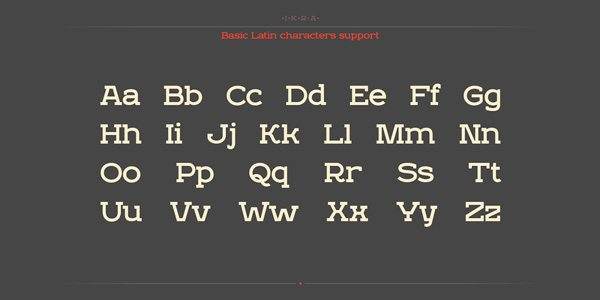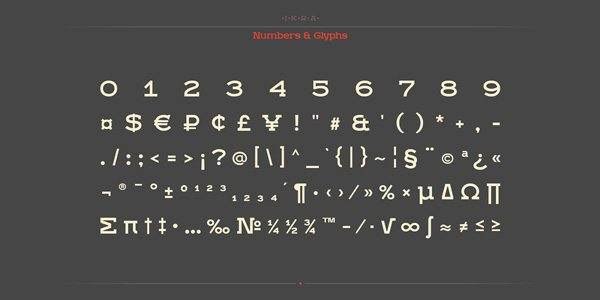
Free Font Of The Day #210 – Ikra Slab Font
Ikra Slab Font
THe font is a new free geometric slab serif font with low contrast. You can use it for identity, headlines and information design. Designed by Sergey Godovalov.